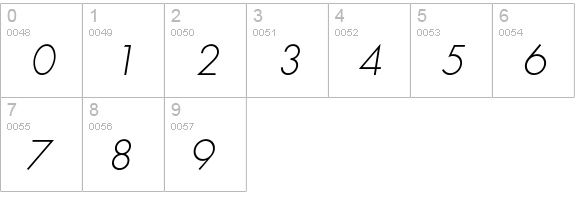
Futura Std Light Oblique Font Details
Futura Std Light Oblique is a refined, elegant, italic variant in the Futura typeface family \xE2\x80\x94 well suited to elegant body text, refined sub-headings, and luxury branding.
Futura Std Light Oblique is a sleek and modern typeface that exudes sophistication and elegance. With its clean lines and subtle slant, this font is perfect for adding a touch of style to any design project. The light weight of the font gives it a delicate and airy feel, making it ideal for conveying a sense of lightness and grace. Whether you're designing a website, creating a logo, or crafting a print advertisement, Futura Std Light Oblique is sure to make a statement. Its versatility and timeless appeal make it a popular choice among designers and creatives. And the best part? Futura Std Light Oblique is available for free download at FontsMarket.com. So you can elevate your designs without breaking the bank. Don't miss out on this opportunity to enhance your projects with the elegance and charm of Futura Std Light Oblique. Download it now and start creating beautiful designs today!